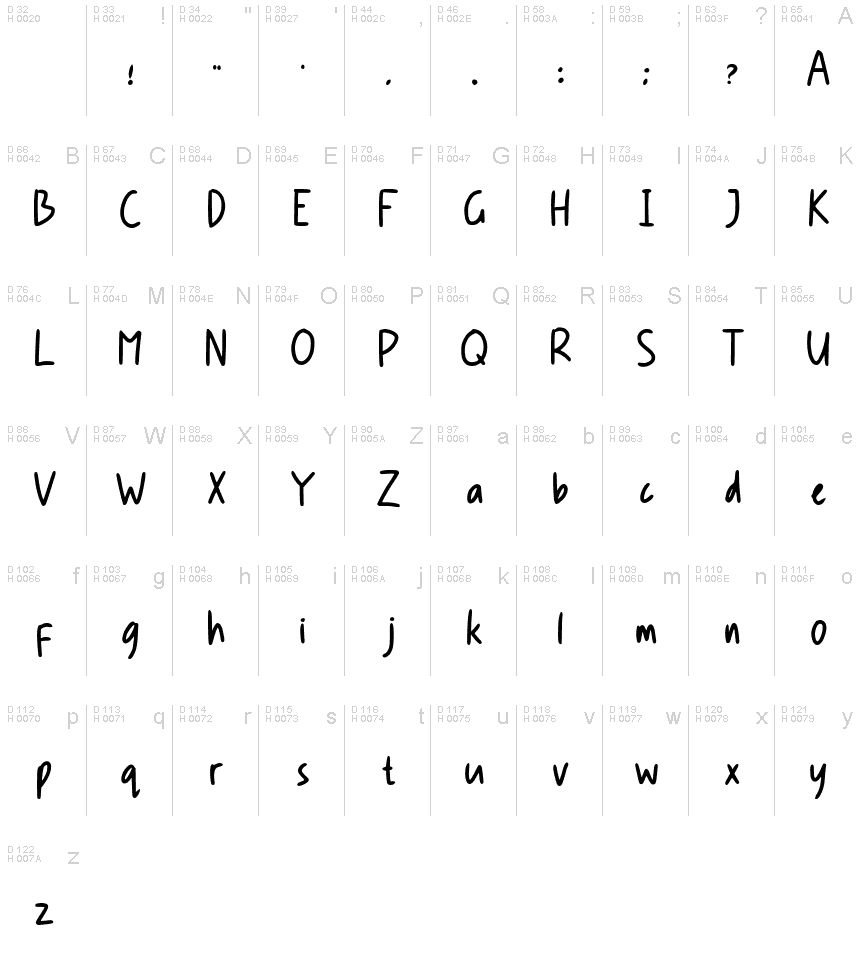
Uteas Font Regular
Introducing Uteas, the semi-light handwritten font that adds a personal touch to any project. Designed by Utea's Font, this font is perfect for adding a unique and organic feel to invitations, posters, logos or any creative project you can imagine. With its delicate curves and playful flow, Uteas is an ideal choice for designs that require a relaxed and charming aesthetic. Let your creativity run wild with Uteas; use it in anything from wedding invitations to food packaging or even social media graphics. This versatile font will leave a lasting impression on your audience while keeping your message clear and legible.